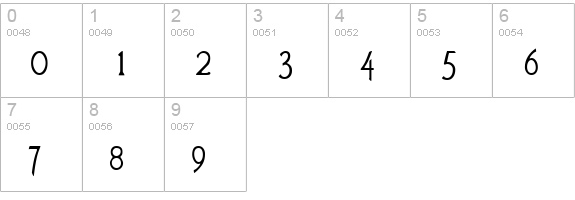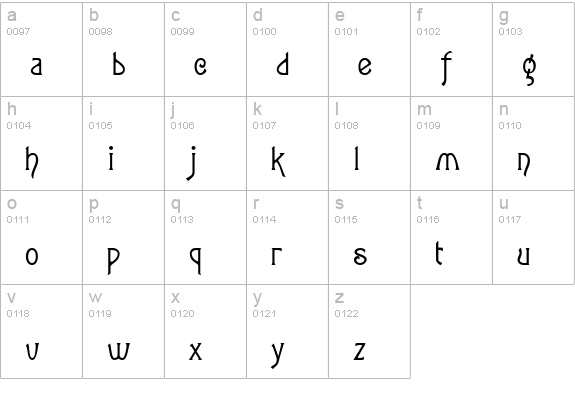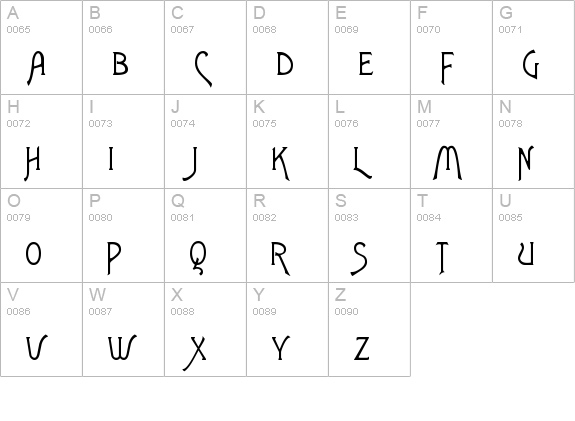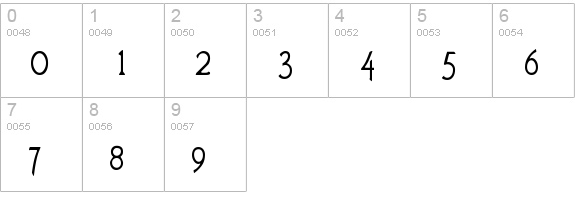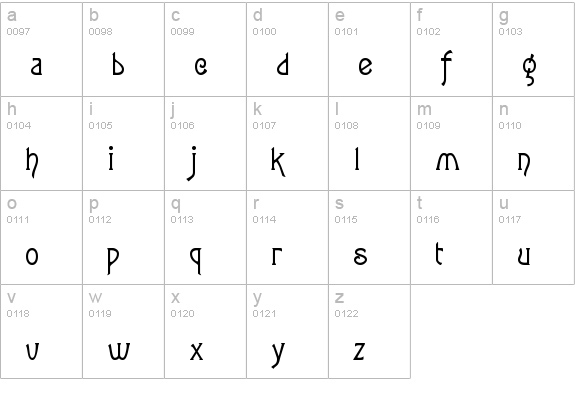
Agatha Font Details
Agatha font is a stunning typeface that exudes elegance and sophistication. With its sleek lines and timeless appeal, Agatha font is a versatile choice for a wide range of design projects. Whether you're creating invitations, branding materials, or editorial layouts, this font will add a touch of class to your work. What sets Agatha font apart is its modern yet classic design, making it perfect for both traditional and contemporary applications. Its clean lines and graceful curves create a sense of refinement that will elevate any project. The best part? Agatha font is available for free download at FontsMarket.com. This means you can easily access this beautiful typeface and use it in your designs without any cost. Don't miss out on the opportunity to enhance your projects with the timeless beauty of Agatha font. Download it today and see the difference it can make in your work.